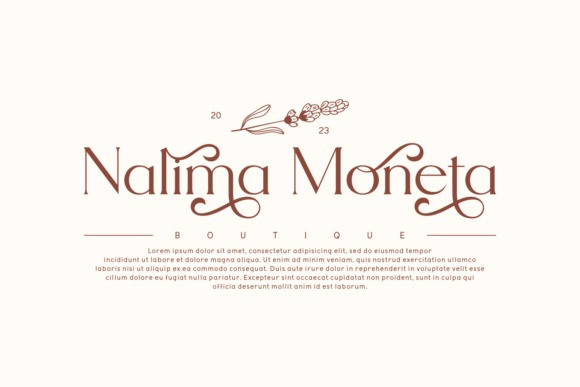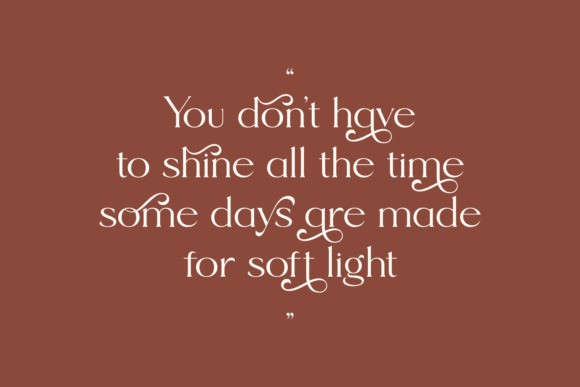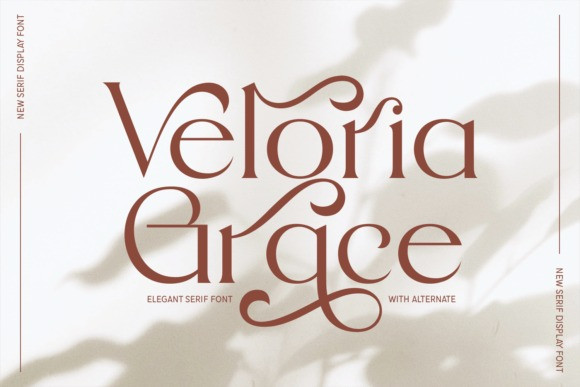
Veloria Grace Font
Veloria Grace Font, a new and elegant serif display font. The clean, off-white background is accented with soft, natural leaf shadows, creating a sophisticated and graceful “boho-chic” aesthetic.